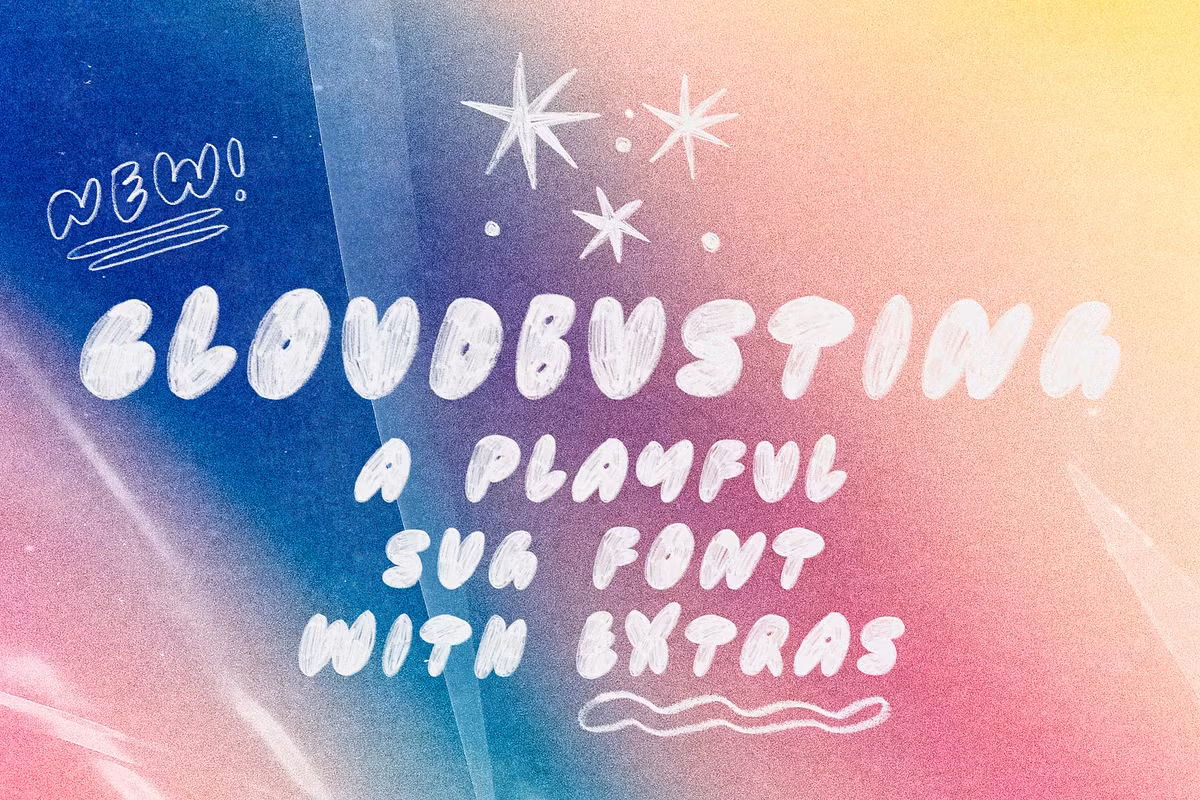
Whimsical, vibrant, and full of charm, Cloudbusting SVG Font Free Download is a playful, hand-crafted font designed with a unique texture that brings the feel of clouds and sky into your designs. Perfect for creative projects, children’s products, posters, invitations, and social media graphics, this font adds a dreamy, airy vibe to any design.
With its soft, textured appearance and stylized letterforms, Cloudbusting offers a fun and artistic touch to typography. Its SVG nature allows it to retain detailed textures, adding an extra layer of creativity to your text-based designs. It’s ideal for whimsical, fantasy-inspired designs or anything that requires a touch of imaginative flair.